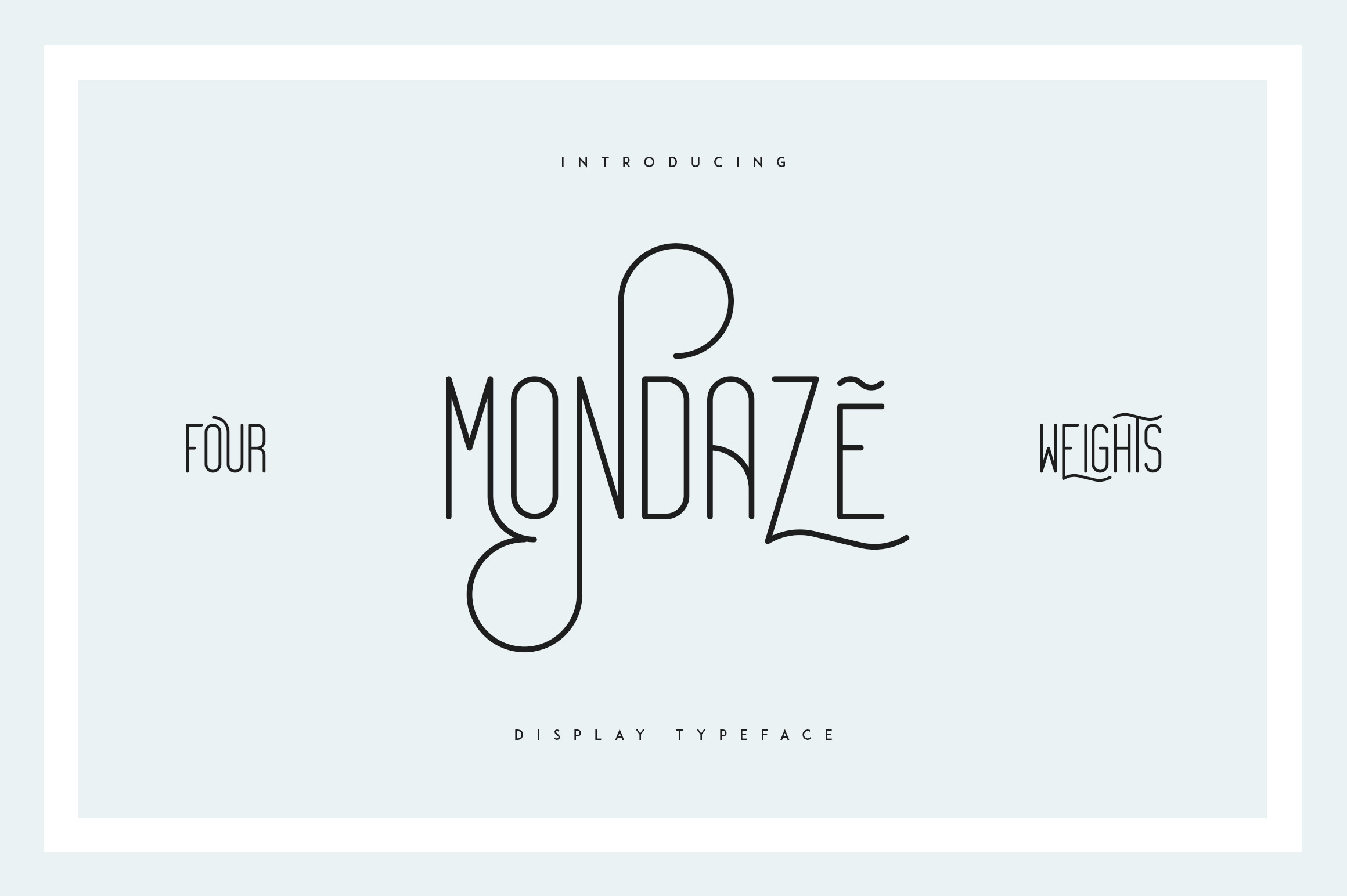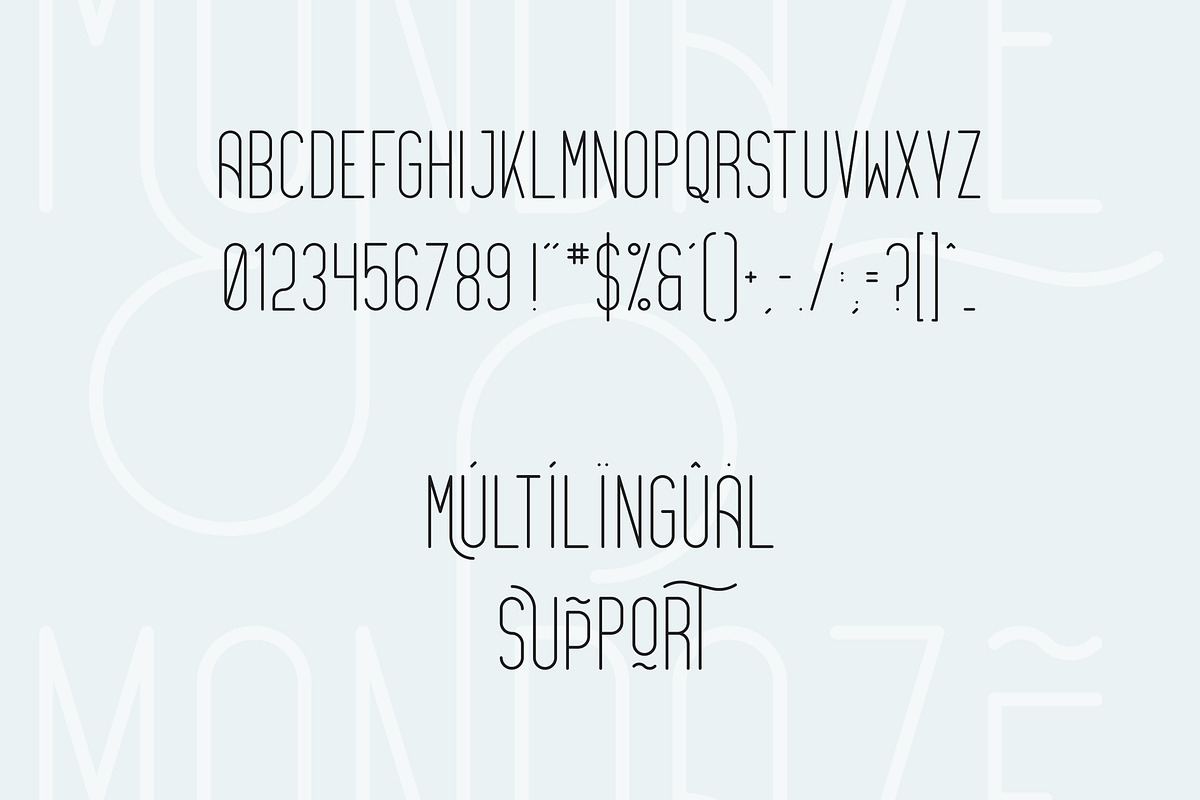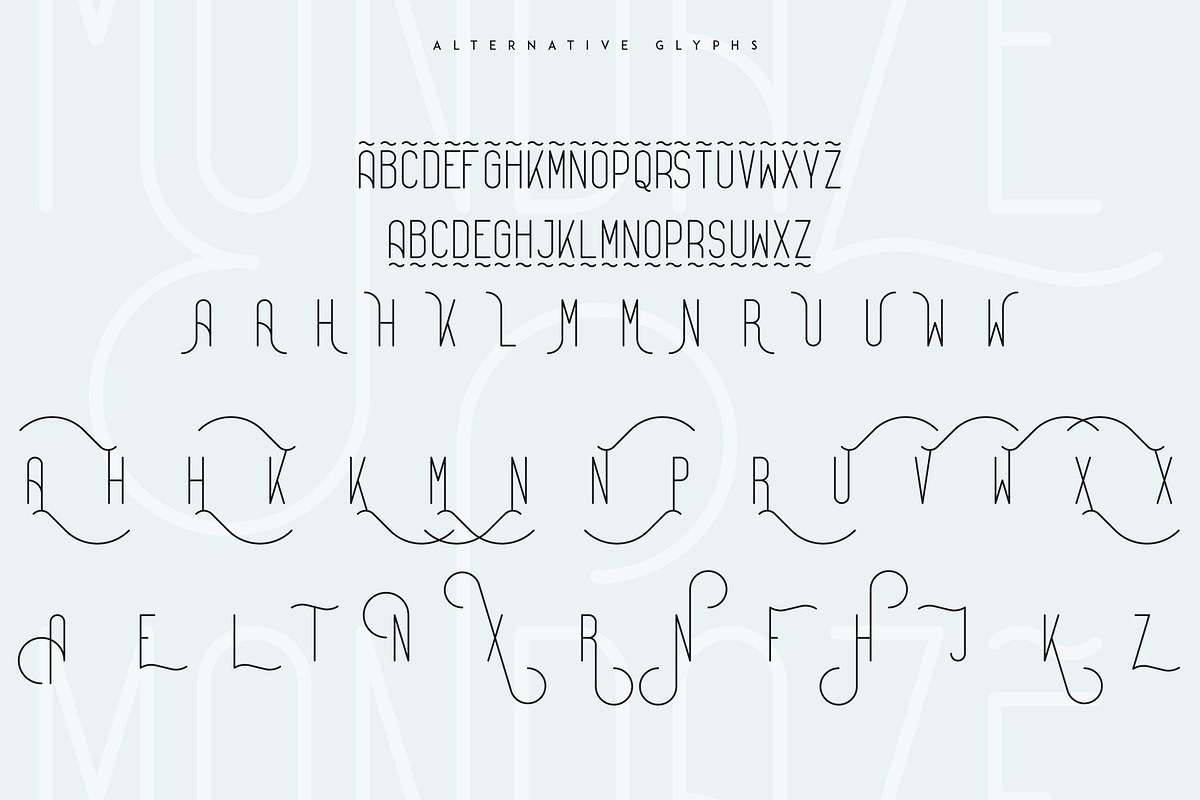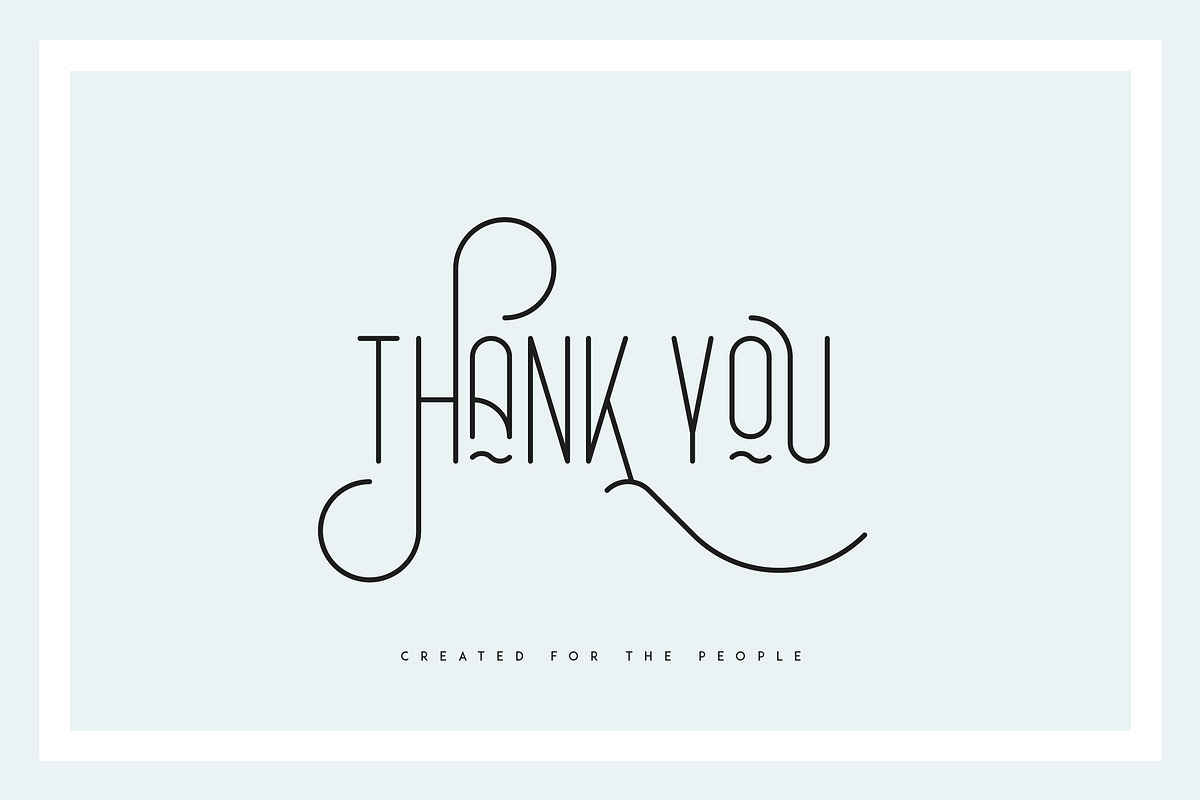
Mondaze is clean, rounded typeface with 4 weights, tons of alternative glyphs and multilingual support. It's a very versatile font that works great in large and small sizes.
Mondaze is perfect for branding projects, home-ware designs, product packaging, magazine headers - or simply as a stylish text overlay to any background image.
- Uppercase,lowercase, numeral,punctuation & Symbol
- Light
- Bold
- Black
- Tons of alternative glyphs
- Clean
- Rounded